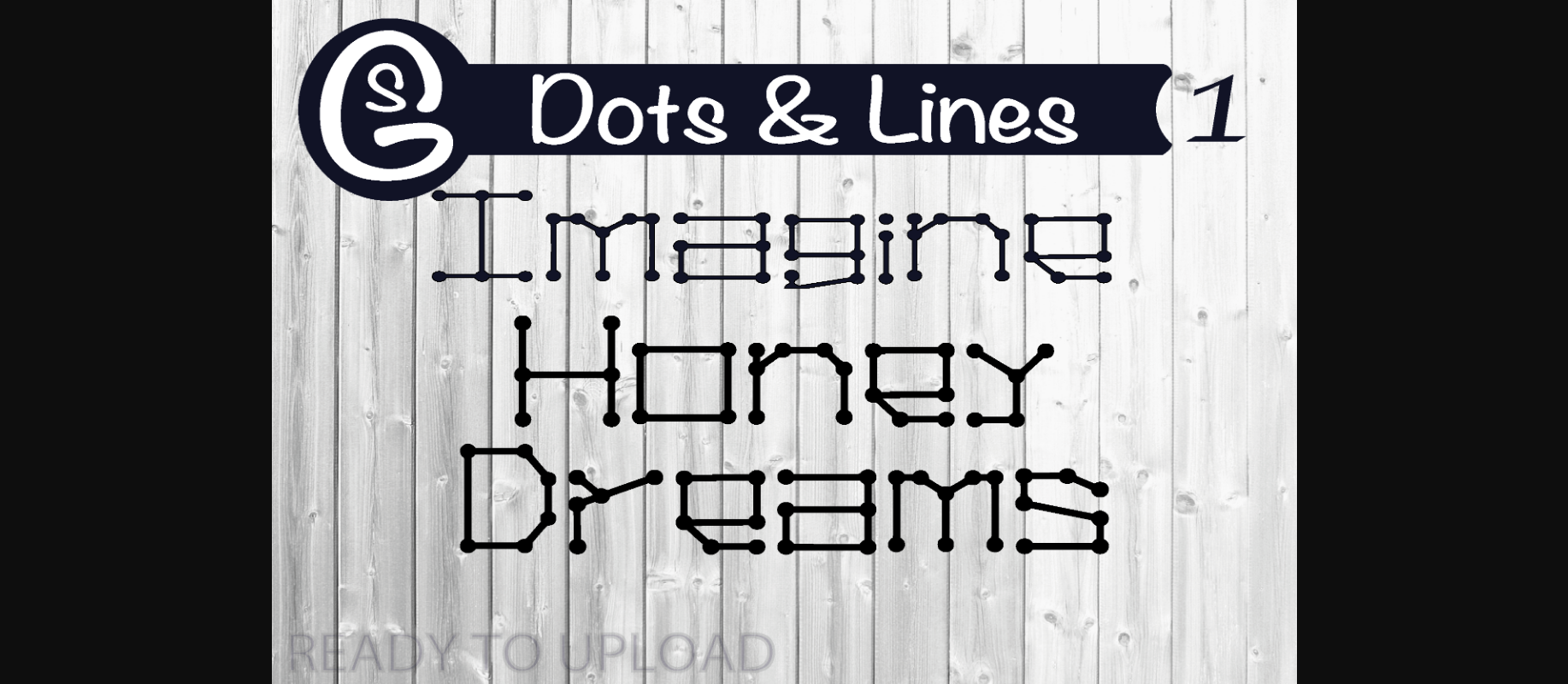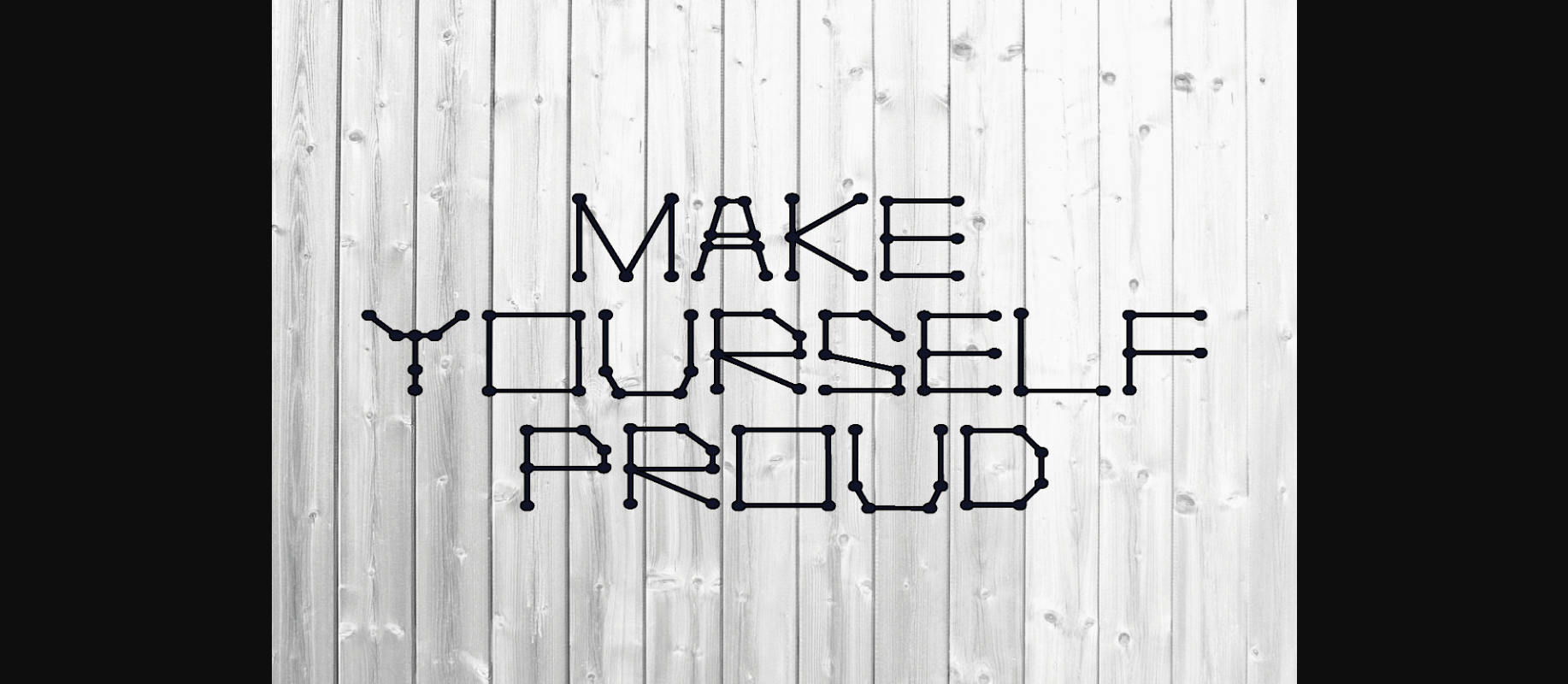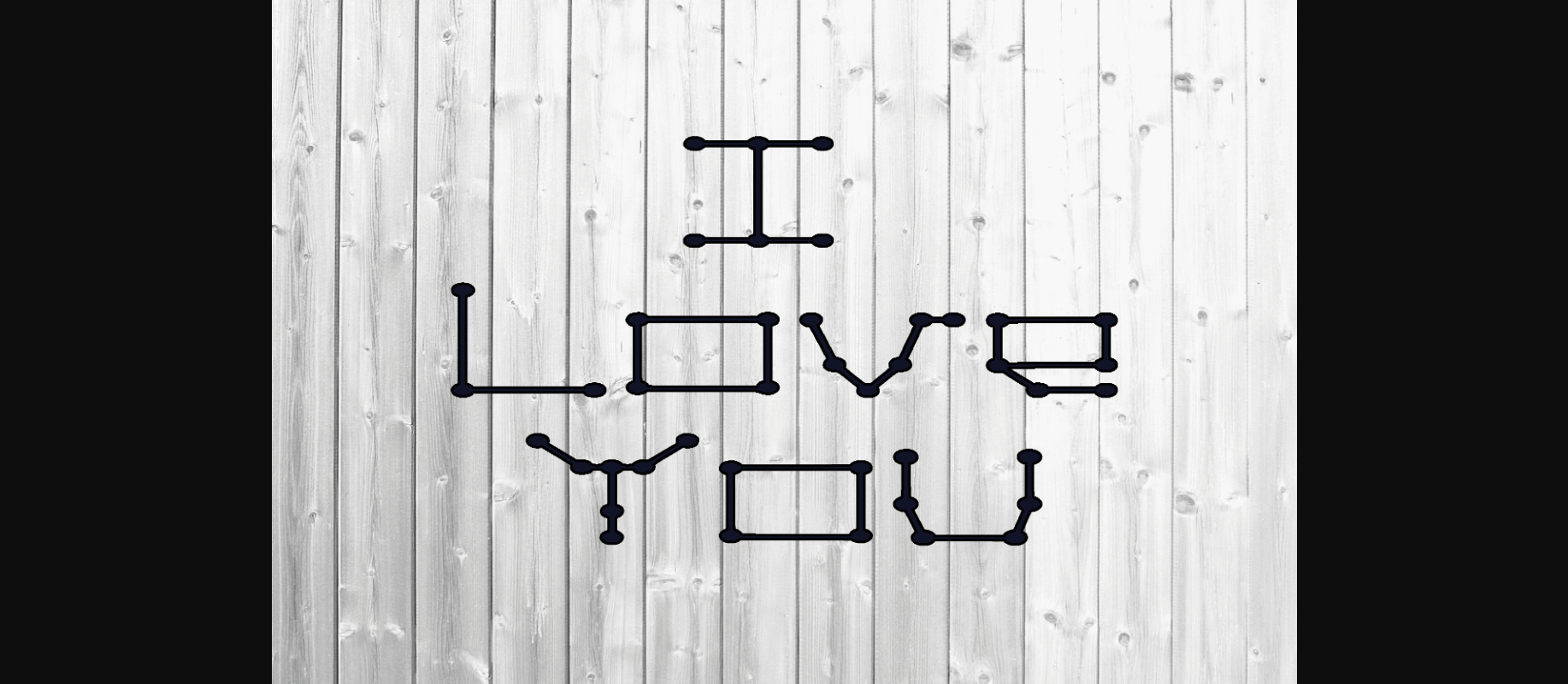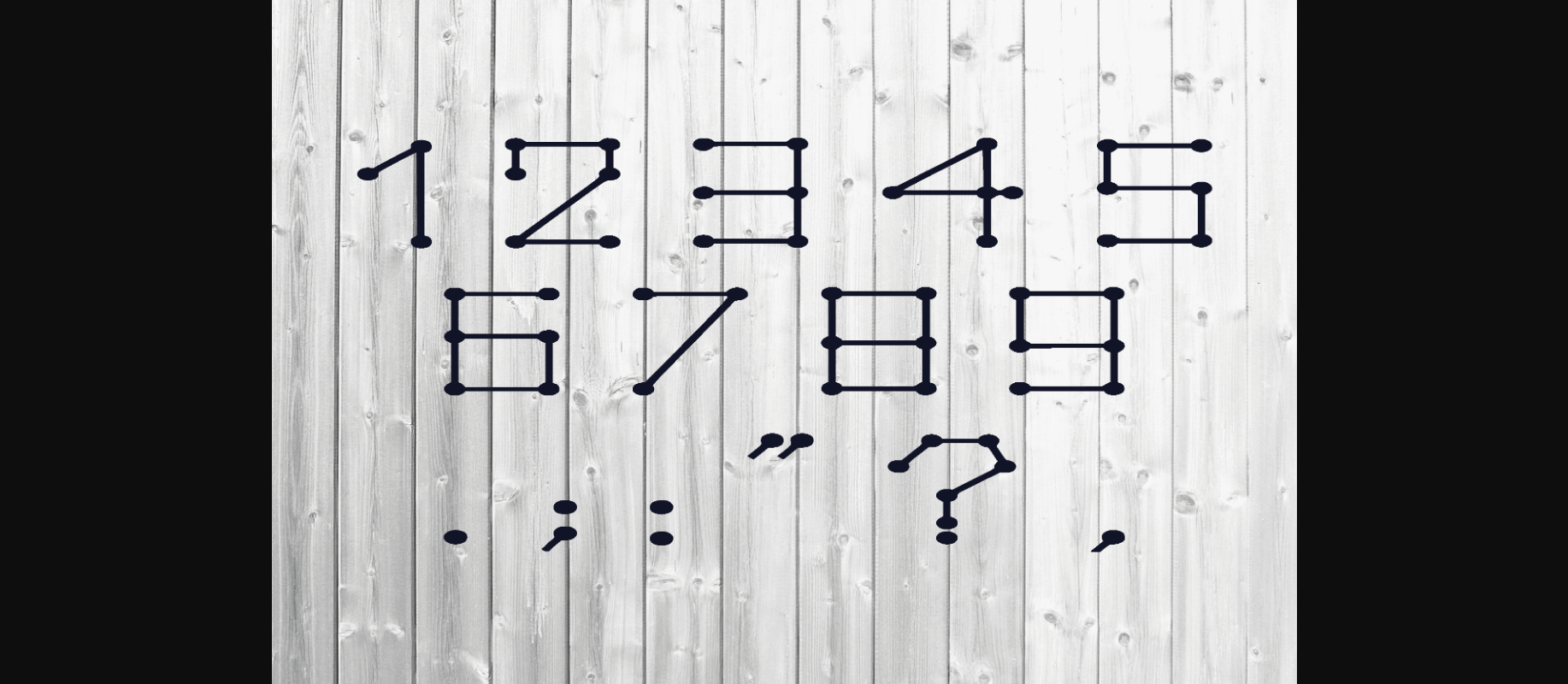
About Dots Lines Font
Dots Lines is a cool and fun decorative font. It looks both cute and jolly, and it will enhance each of your designs. Add this bold font to each of your creative ideas, and notice how it makes them come alive!
Fun and happy, it will lift your designs and add a cheeky touch. Perfect for books, cute quotes, and so much more!